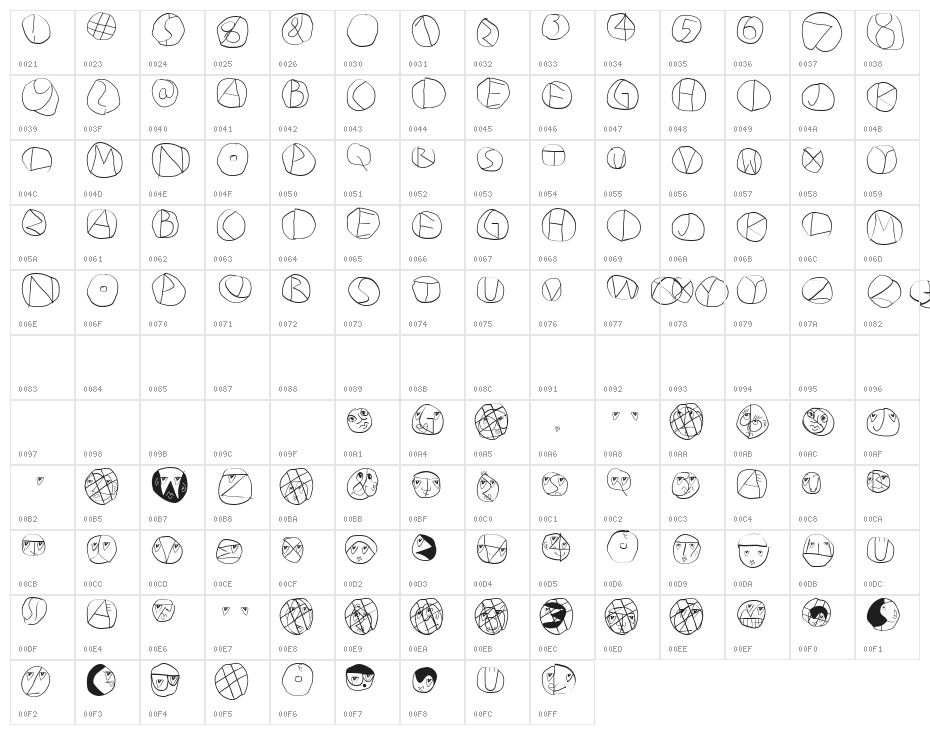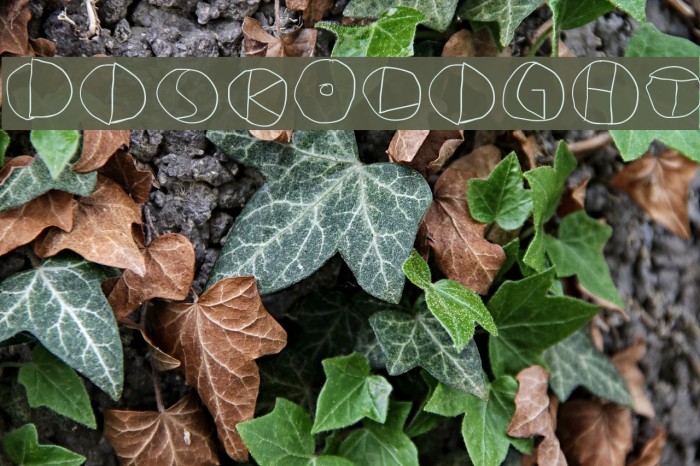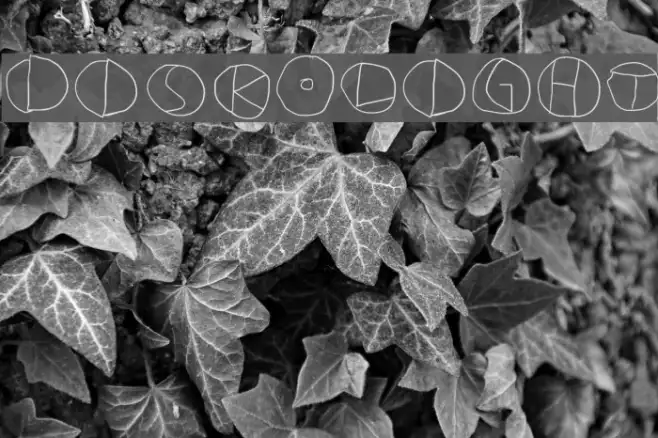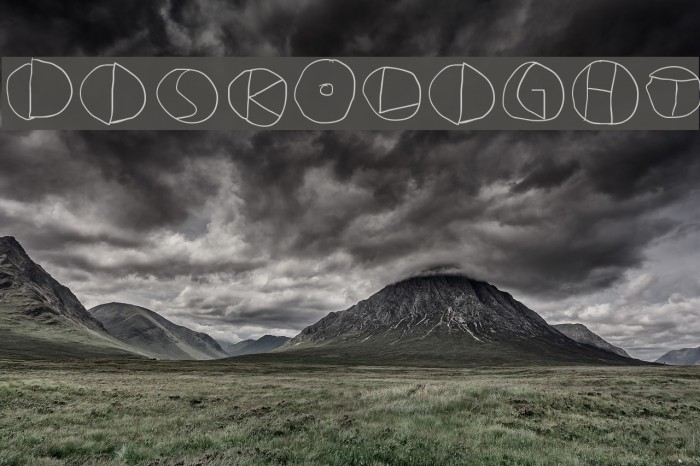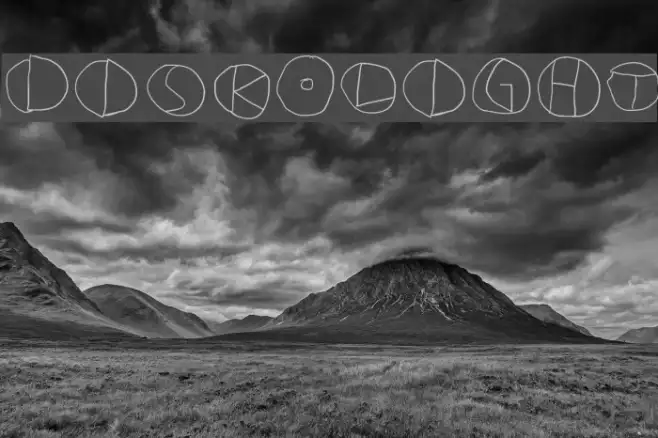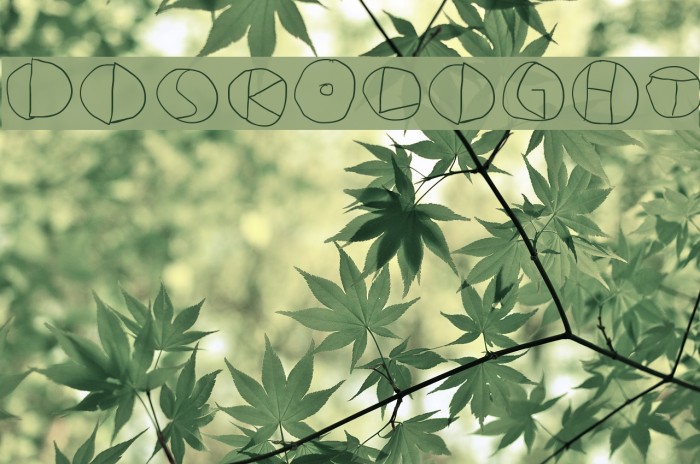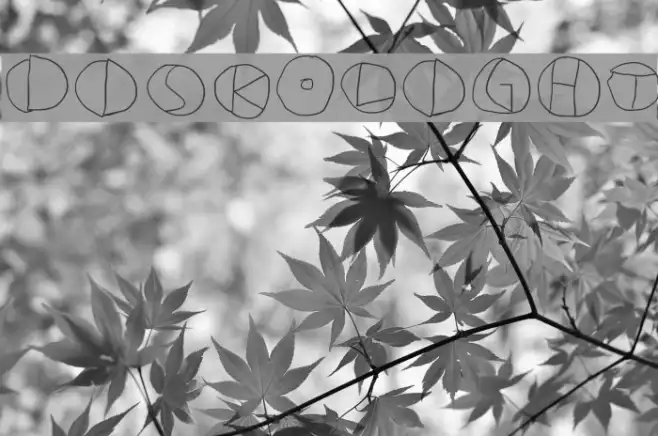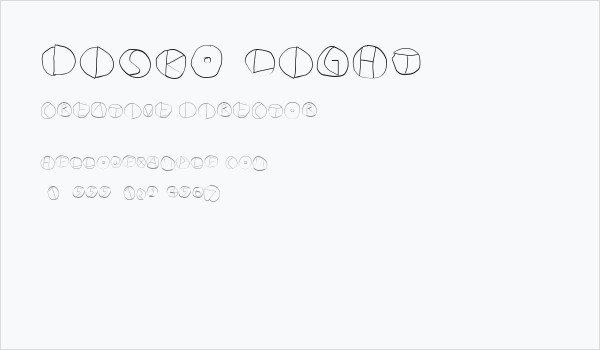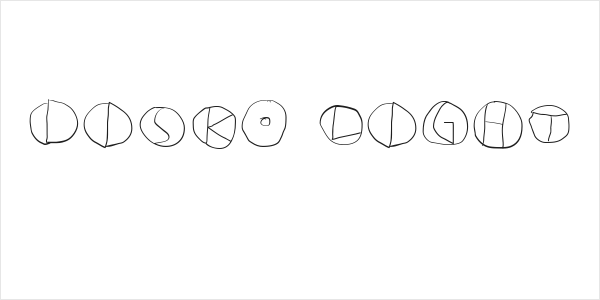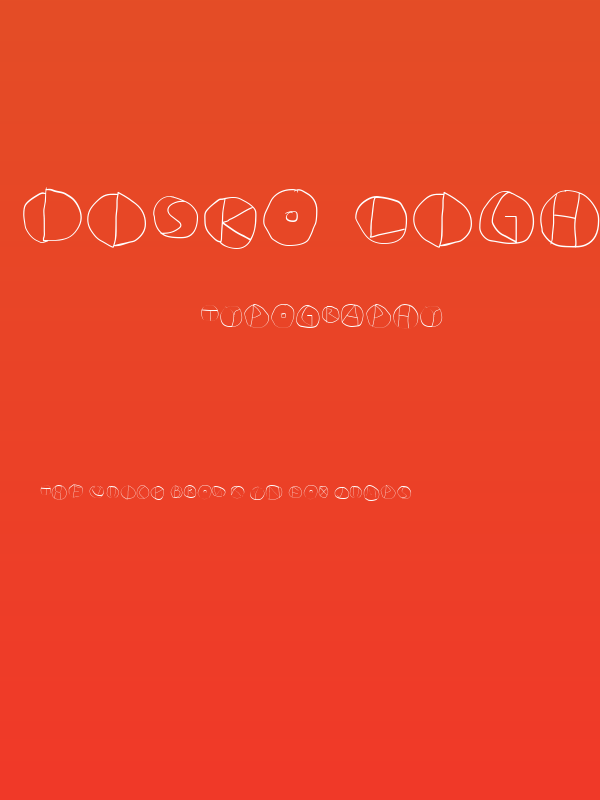
DiskO-Light Font
DiskO-Light Description
This font features a unique and playful design, characterized by its circular and geometric shapes that encapsulate each letter and number. The lines are thin and consistent, creating a light and airy feel. The letters are enclosed in circles, giving a sense of cohesion and uniformity. This style is reminiscent of a modern, abstract art form, making it stand out with its distinctive appearance. The font maintains a consistent line weight throughout, ensuring readability while still offering a decorative flair. The special characters follow the same circular theme, integrating seamlessly with the rest of the font.
| Use Case | Logos, Posters, Artistic Branding |
| Proposed Projects | Ideal for creative projects such as posters, album covers, or branding for modern and artistic ventures. |